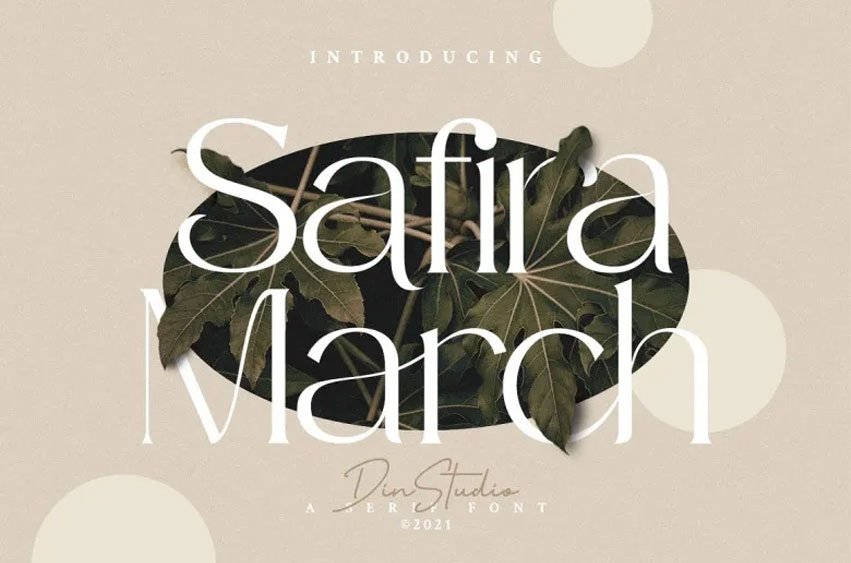
Safira March Font is sure to draw in viewers and make your advertising campaigns or projects shine! Give your brand more presence while adding modernity with Safira March.
Use it to design headers or business cards, logos and printed quotes, invitations of various kinds, invitation cards and packaging – even your website’s social media logo!